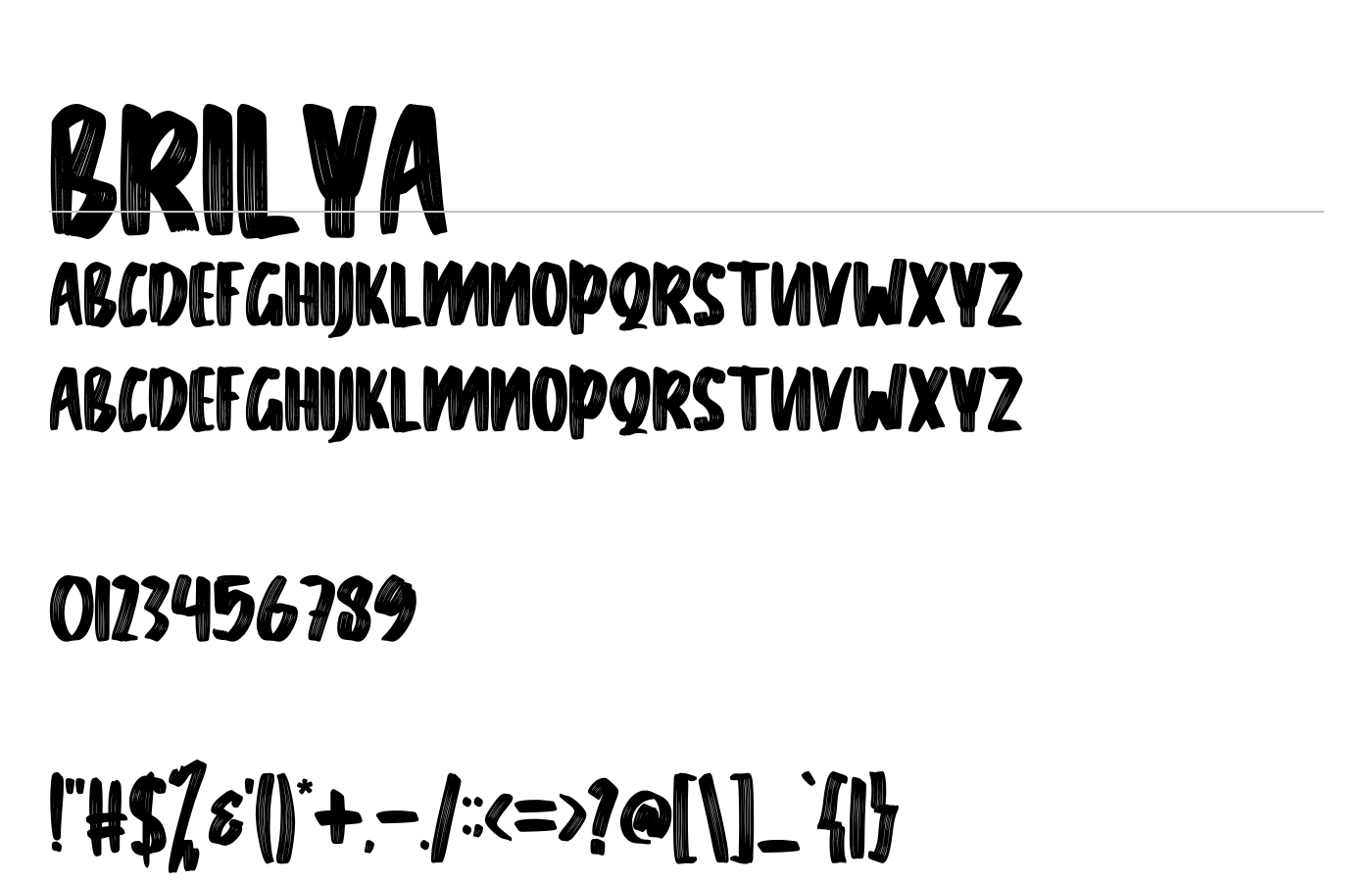
Brilya is a bold, playful handwritten sans serif font with a casual, brushstroke style that feels energetic and informal. Its irregular, slightly condensed letterforms and strong texture make it ideal for creative, fun branding, posters, and headline use where personality and a lively vibe are needed. This font works well to add a handcrafted, approachable touch to designs while maintaining legibility.
Brilya Font
About Brilya Font